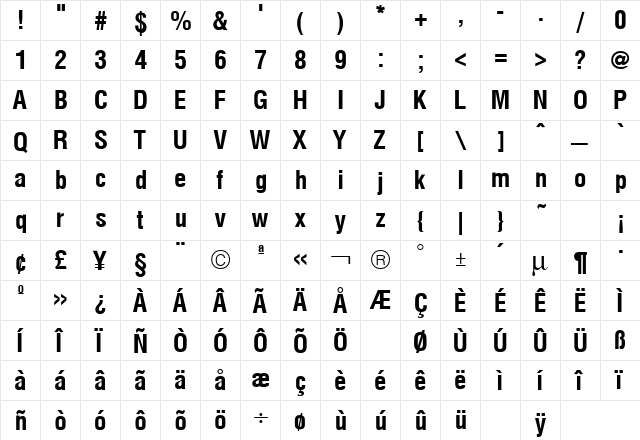
Hallmarke Condensed Bold
Design Context for Hallmarke Condensed Typeface
Hallmarke Condensed is a composed and adaptable typeface that performs quietly and consistently across a wide range of design contexts. Its bold stroke weight gives it real presence on the page. The condensed width makes it efficient for tight spaces without sacrificing legibility.